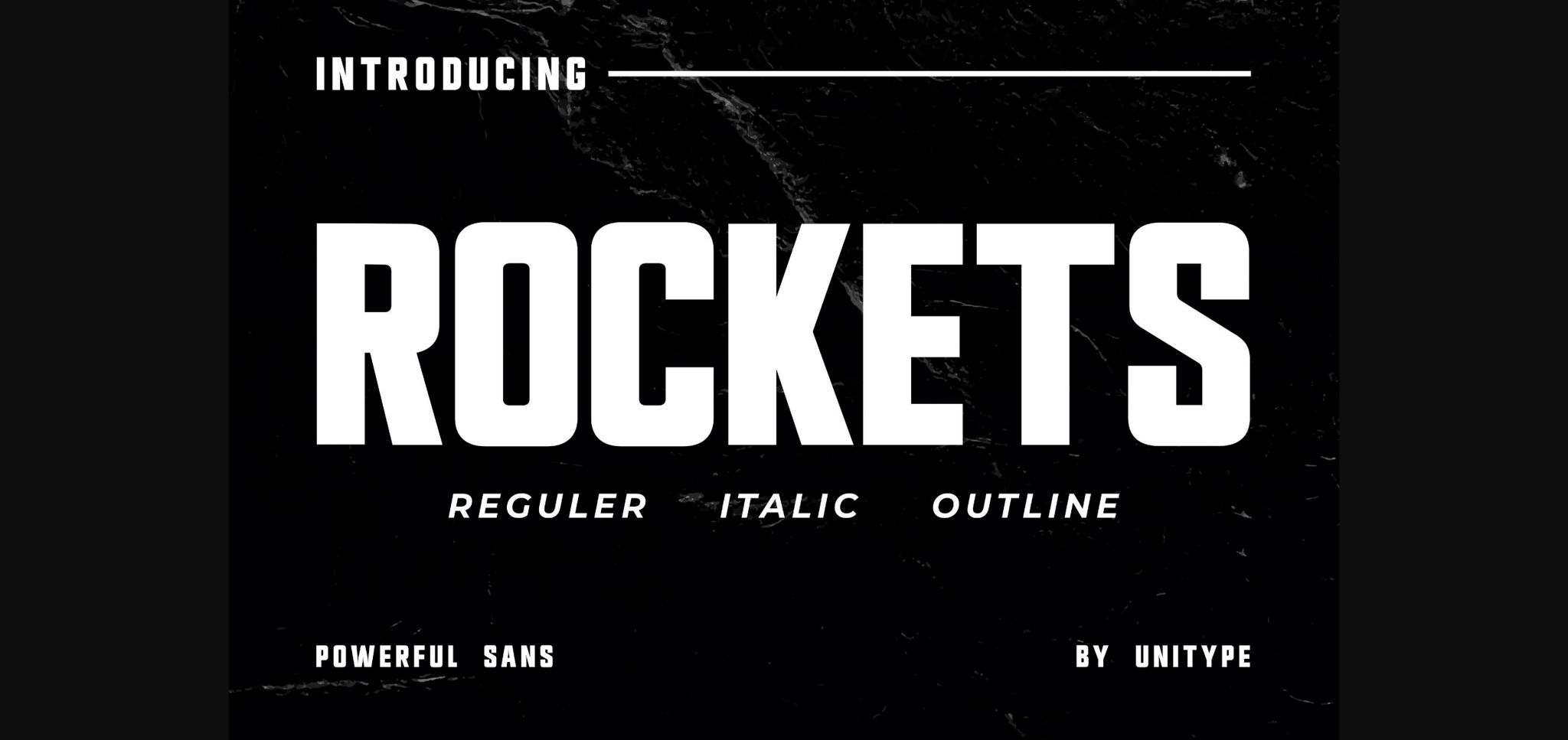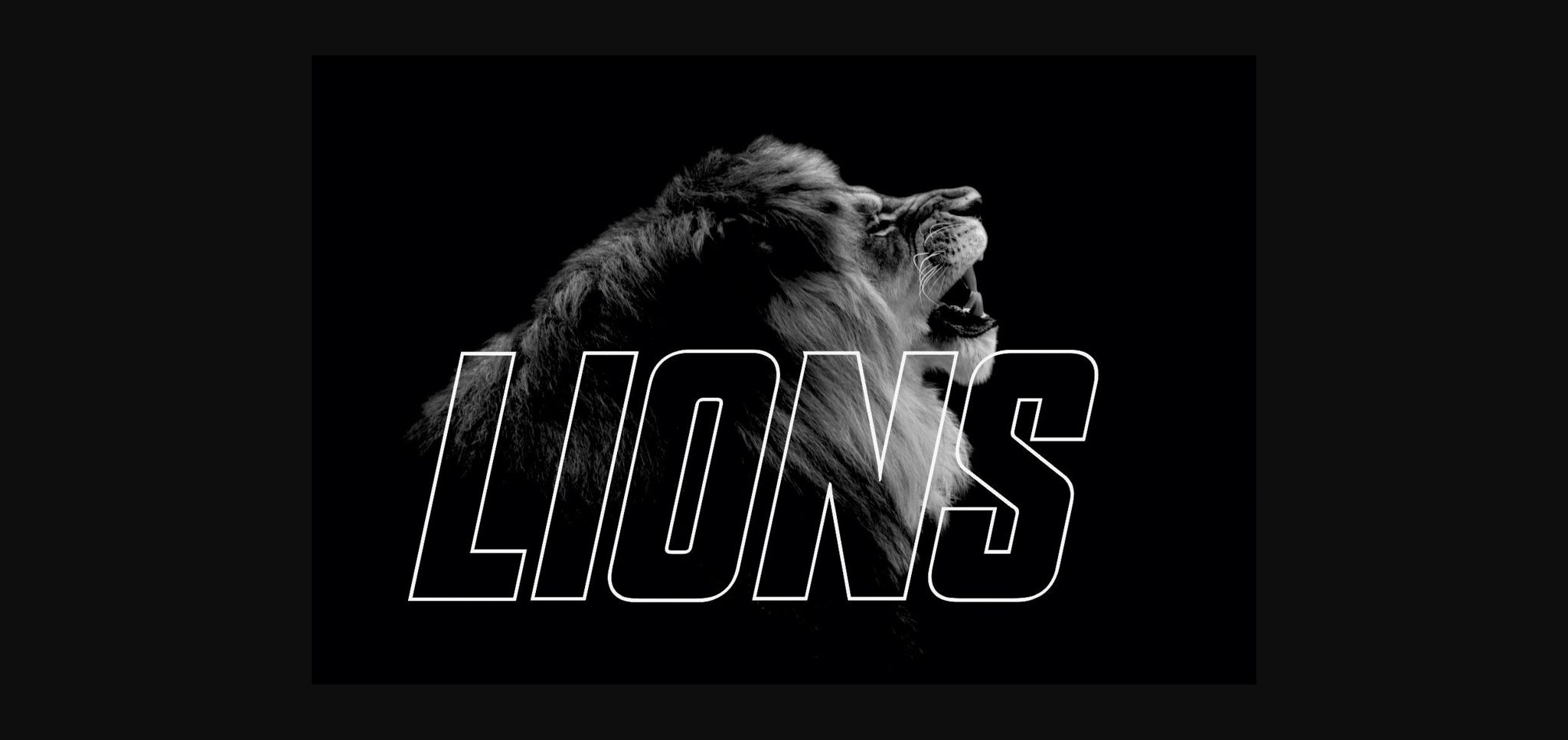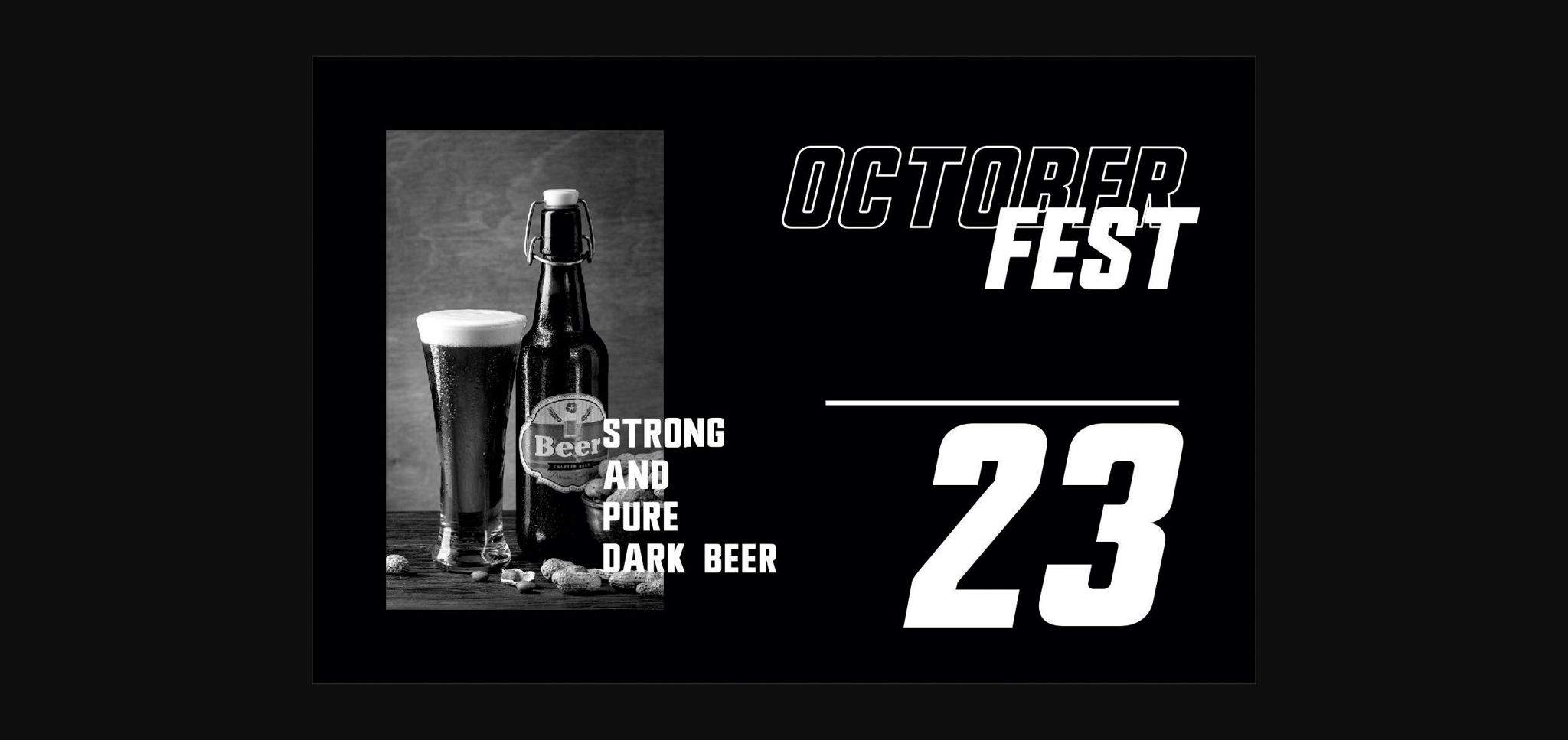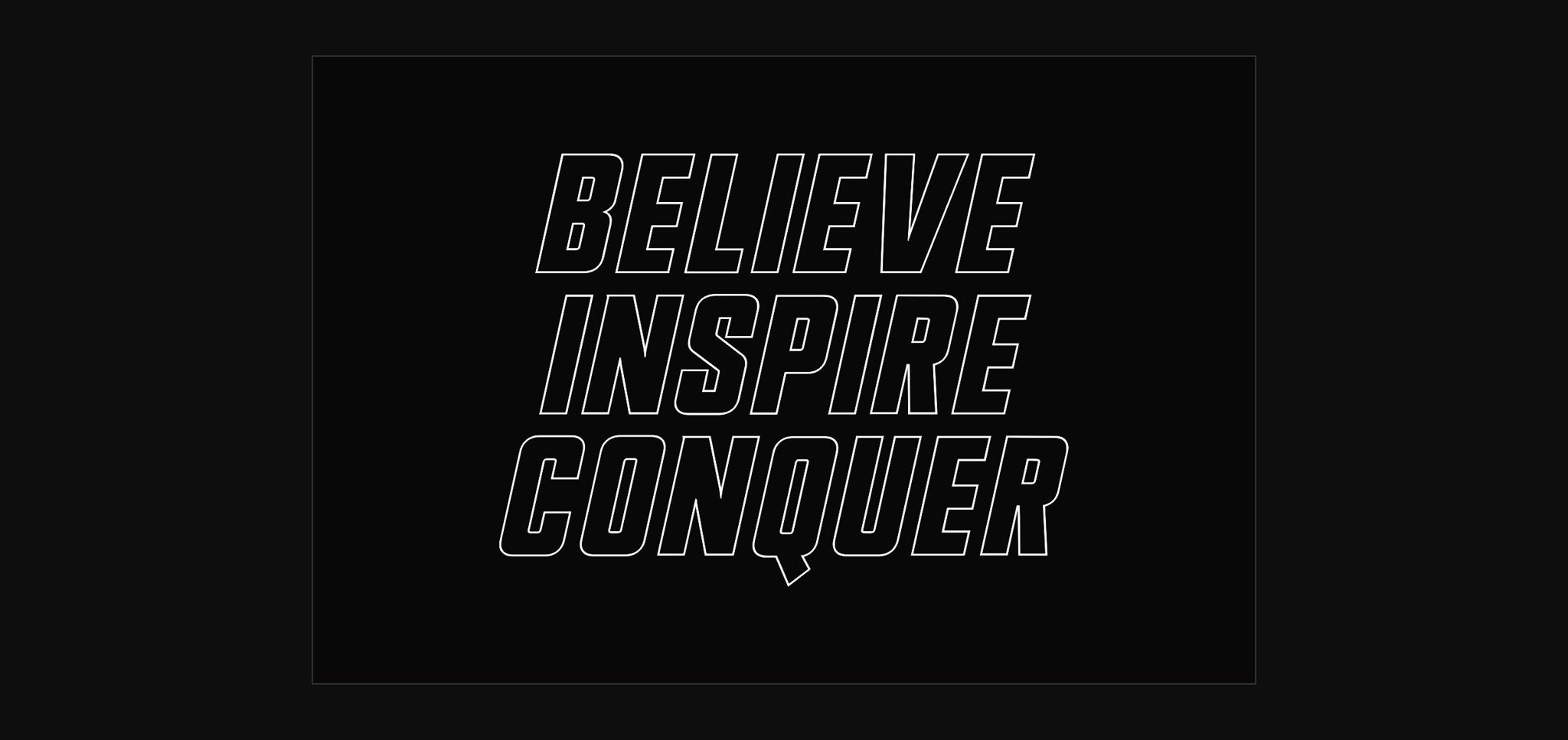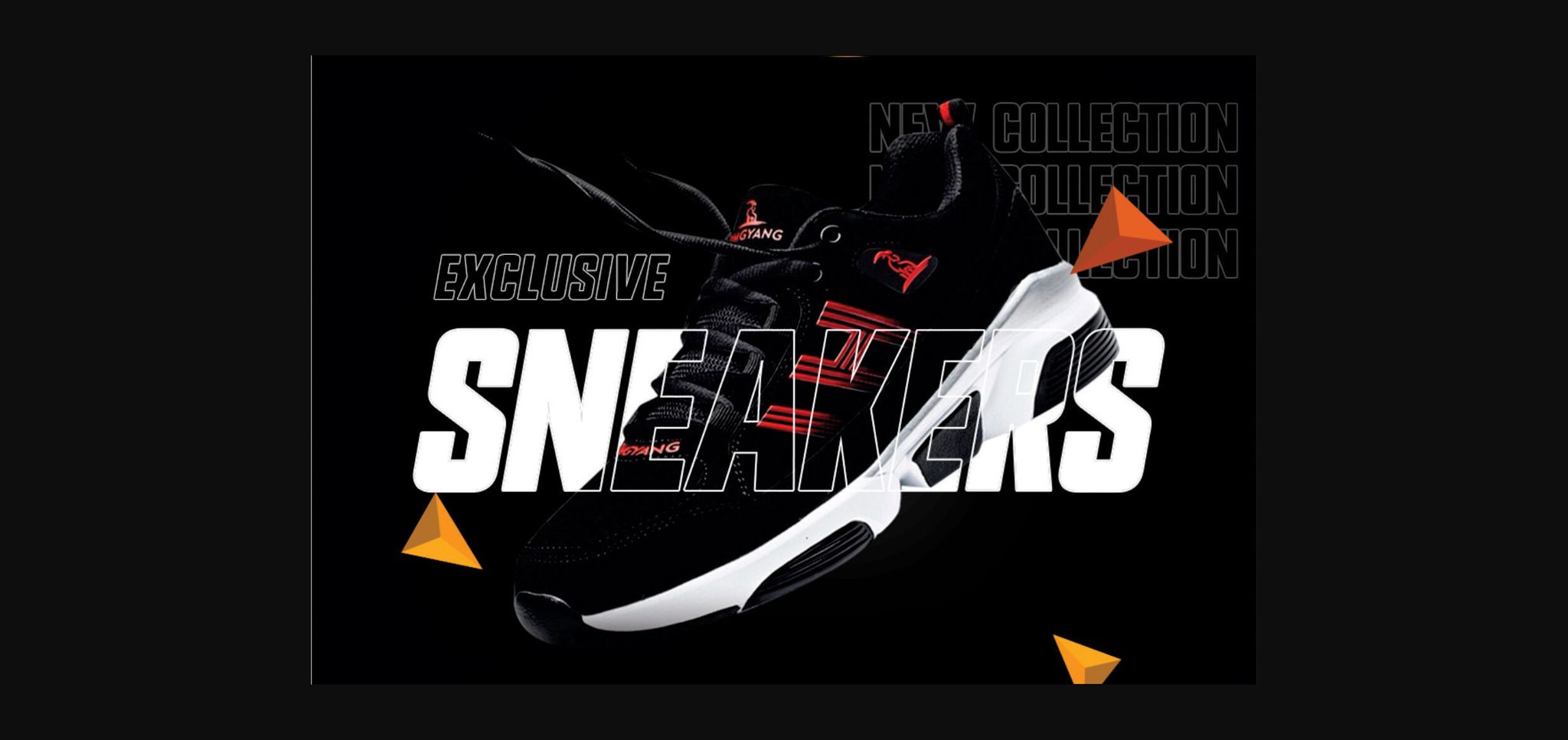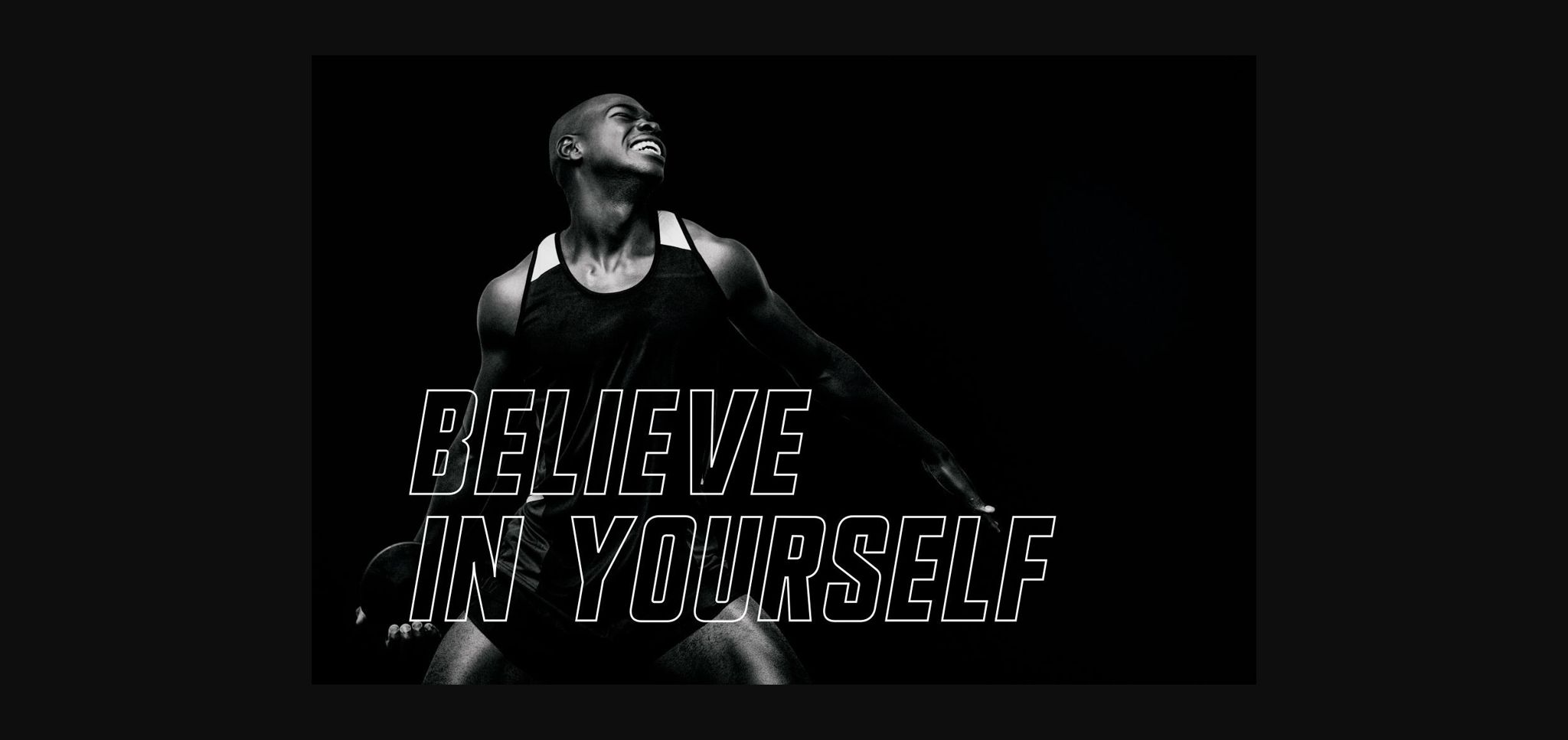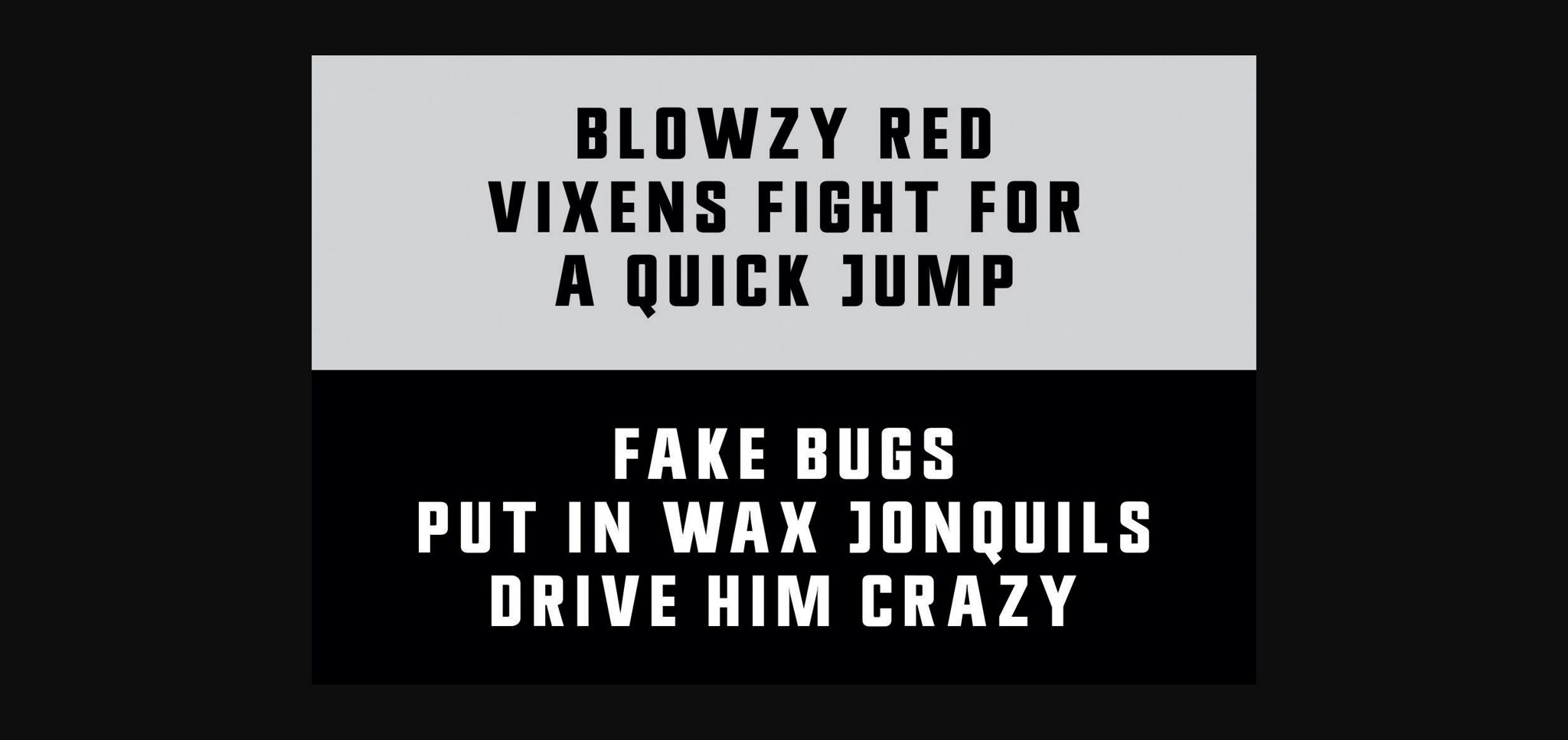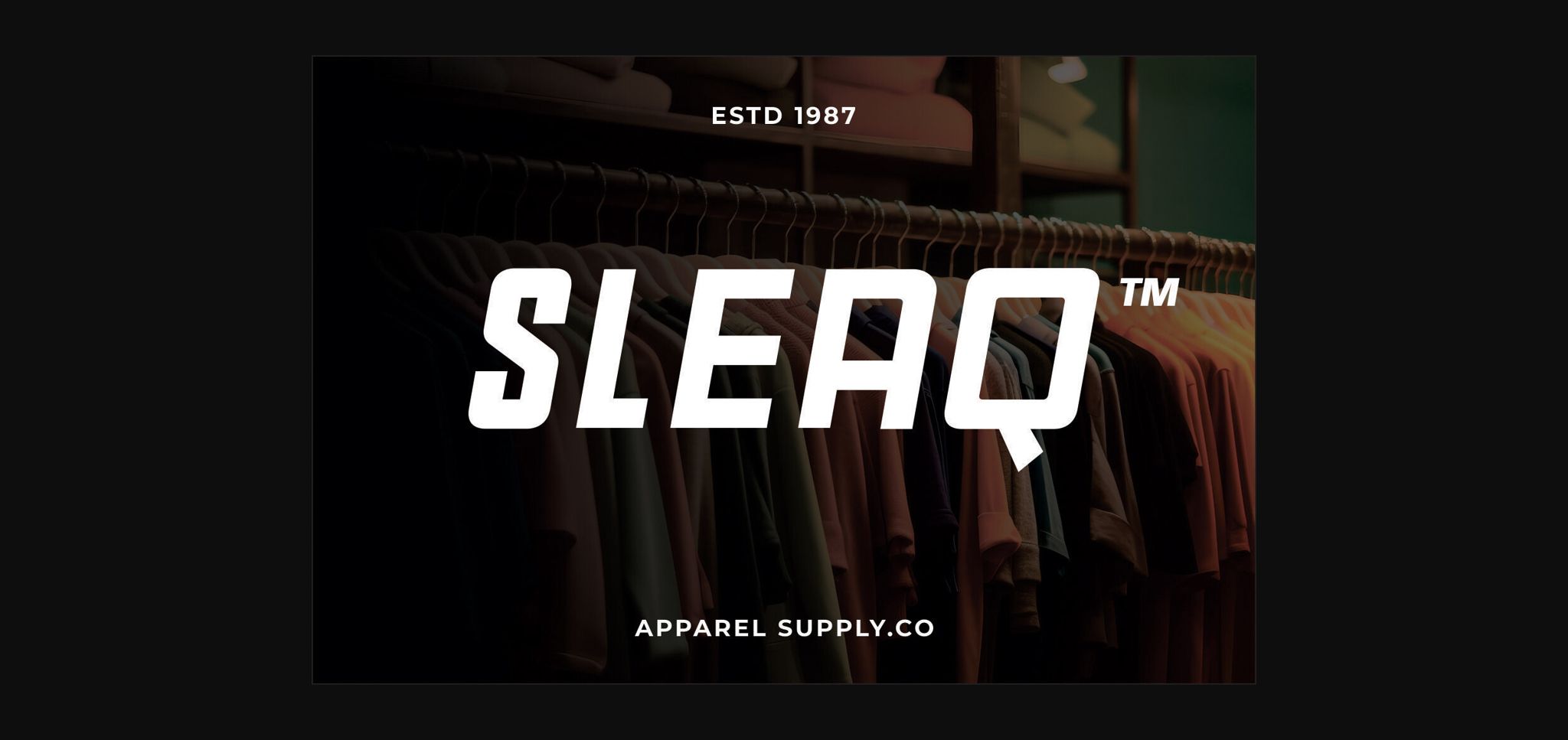
Rockets Font
About Rockets Font
Introducing “Rockets,” the epitome of a powerful sans font that will ignite your designs with boundless energy! This remarkable typeface is meticulously crafted to elevate your headlines in newspapers and magazines, as well as sports-related content. Its bold and dynamic characters exude strength and vigor, making every word leap off the page.
The “Rockets” font commands attention with its impactful presence, ensuring your message reaches the hearts of your readers with unparalleled authority. Whether you’re announcing breaking news, reporting on thrilling sports events, or unleashing the latest trends, “Rockets” will be your ultimate ally in creating captivating and persuasive visuals.